15 Best Modern Wedding Font Assets for High-End Layouts
When designing contemporary layouts, finding the perfect typography is everything. A truly exceptional Modern Wedding Font doesn’t just sit on the canvas; it redefines the entire editorial space. I’ve rounded up 15 of my absolute favorite studio picks that blend geometric minimalism with sophisticated charm, helping you build high-end visual hierarchies effortlessly.
1. Valentine Modern Wedding Font
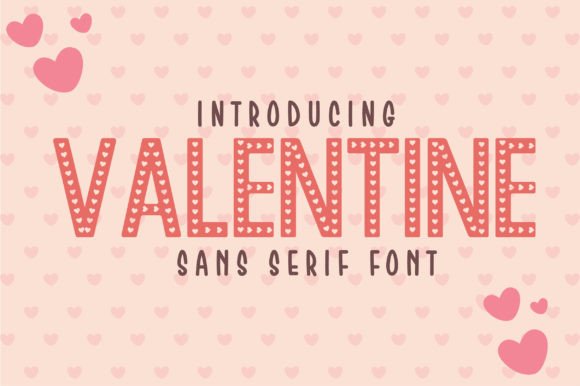
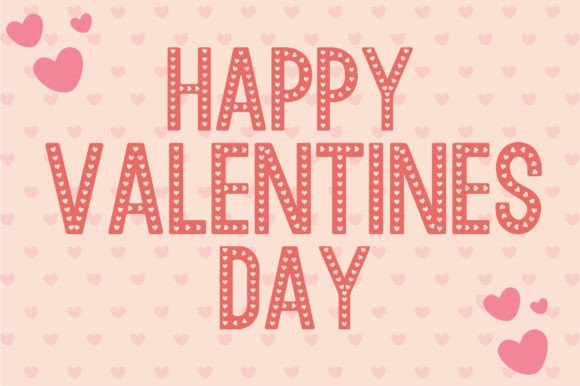
It’s easy to assume that bridal typography requires complex calligraphy, but stripped-back geometry can often make a far more powerful statement on a blank canvas. Valentine is a total breath of fresh air if you are hunting for a Modern Wedding Font that relies on crisp, contemporary sans-serif lines rather than sweeping swashes. It carries a highly unique structural style that brings an immediate sense of clean luxury straight to your main header blocks, ensuring your text commands the artboard with unyielding clarity.
In my day-to-day studio routine, I’ve found that this versatile Modern Wedding Font functions as an incredibly reliable asset across both traditional event print and everyday commercial merchandise. While it shines beautifully on contemporary bridal banners and elegant logo layouts, its structured character paths scale perfectly onto physical lifestyle products like custom apparel, printed mugs, and high-end magazine covers. If you want a display sans that keeps your visual hierarchy impeccably sharp while looking forward rather than backward, Valentine is well worth installing.
2. Whitebeard Modern Wedding Font
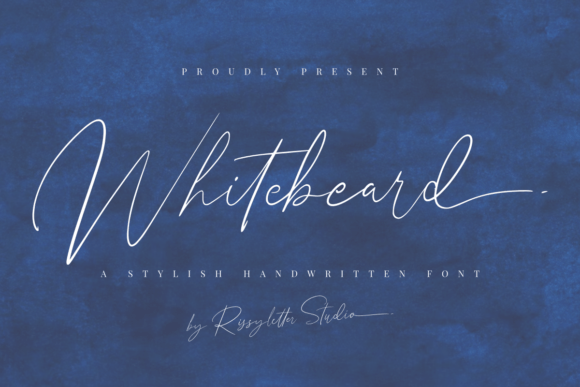
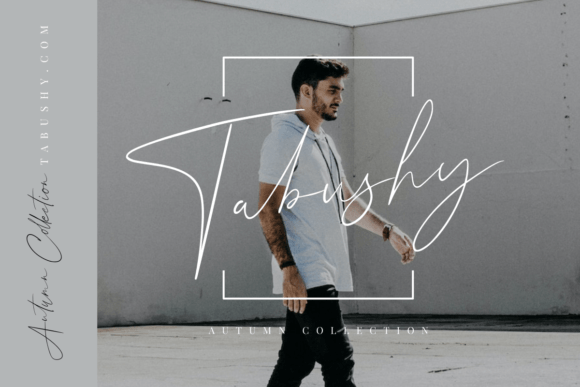
Finding a handwritten script that feels genuinely personal without losing its structural discipline on a high-resolution screen can be a real challenge. Whitebeard completely nails that balance, making it an exceptional choice if you are hunting for a Modern Wedding Font. Built with clean, ink-drawn strokes, it injects an immediate organic warmth directly into your layout, effortlessly cutting through the clinical, predictable paths of standard stock typefaces.
In my own studio workflow, this versatile Modern Wedding Font functions as a highly reliable asset across both digital environments and physical print pieces. It performs beautifully as a crisp watermark for professional photography portfolios, a sleek signature-style logo, or a fluid header for contemporary websites and invitation suites. No matter the scale, Whitebeard keeps its letterforms sharp and legible, giving your creative assets a highly personalized, upscale edge.
3. Handsome Boys Modern Wedding Font
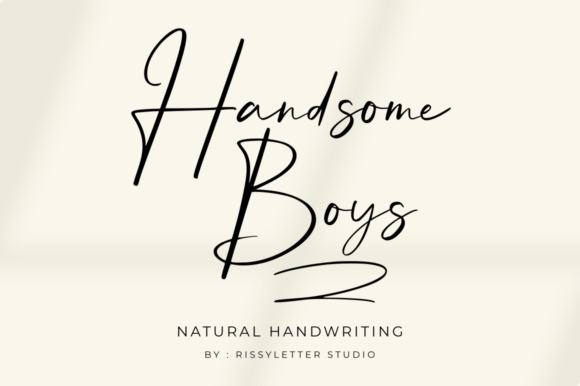
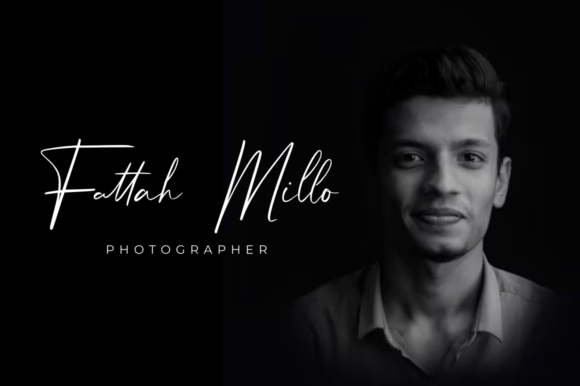
Sometimes you need a script font that sheds the stiff, overly formal rules of the past and brings a fresh, relaxed confidence to the canvas. Handsome Boys hits that sweet spot perfectly, serving as an exceptional choice for a Modern Wedding Font. Its fluid, casual letterforms inject an immediate sense of warmth into your layouts, ensuring your text feels completely approachable yet undeniably sophisticated from the very first glance.
What makes this Modern Wedding Font a great addition to a busy studio toolkit is its massive versatility across completely different design mediums. In my own daily workflow, it performs like an absolute champ for contemporary wedding invitations, sleek photography watermarks, and minimalist signature-style logos. It scales beautifully onto digital branding projects and modern website headers, maintaining its crisp lines while giving your compositions a highly personalized, upscale finish.
4. Wintersay Modern Wedding Font
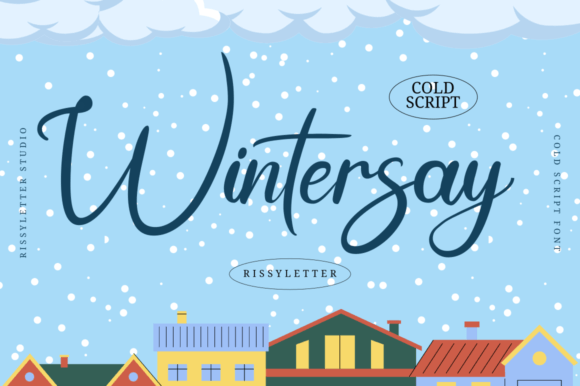
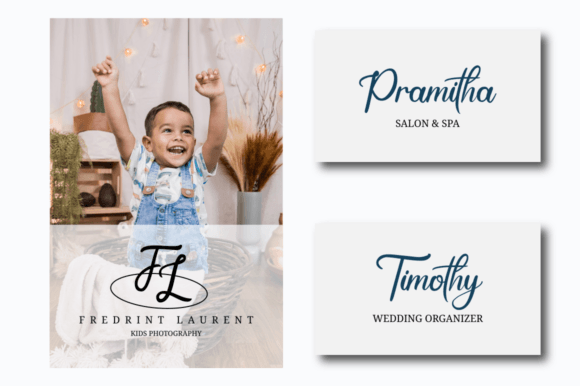
There is a fine line between a script that looks beautifully fluid and one that completely falls apart in a tight layout, but Wintersay walks that line with absolute precision. If you are tracking down a Modern Wedding Font that brings immediate elegance without overcomplicating your canvas, this typeface is an exceptional choice. It features remarkably well-balanced characters that maintain a clean, rhythmic flow, giving your primary header lines a polished, high-end presence.
What makes this specific Modern Wedding Font a total dream to work with in my daily studio routine is that it’s fully PUA encoded. This means you can effortlessly unlock all its custom glyphs and hidden ligatures without dealing with complex software workarounds. Its smooth, structural layout handles a massive range of design projects seamlessly—from sleek bridal invitation suites and event banners to contemporary lifestyle branding, keeping your visual hierarchy sharp and entirely functional.
5. Gorga Romantic Modern Wedding Font
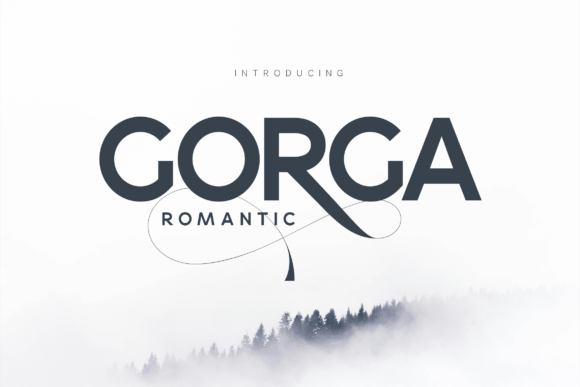
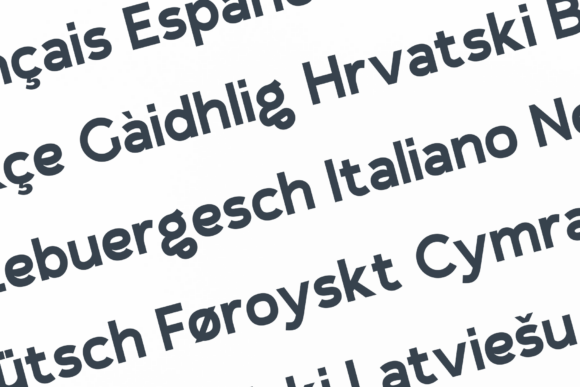
If you think sans-serif typefaces are too sterile for a luxury bridal layout, Gorga Romantic is here to completely change your mind. This brilliant typeface is a stellar example of a Modern Wedding Font that perfectly balances crisp geometric stability with sharp, fluid details. Built on bold, wide-proportioned characters and incredibly clean vector edges, it brings an immediate structural weight to your canvas while keeping the design feeling entirely fresh and forward-thinking.
What completely stole my attention is its standout decorative feature—a dramatically elongated, calligraphic tail on the uppercase “R” that loops beneath adjacent characters in a thin-line stroke. In my own studio workflow, this unique Modern Wedding Font works as a total powerhouse for high-impact header blocks, custom branding layouts, and editorial event signage. It effortlessly replaces predictable digital paths with a custom-engineered presence that commands attention.
6. Rergian Modern Wedding Font
Mastering the balance between quiet minimalism and high-impact drama is a tough design feat, but Rergian executes it with absolute poise. If you are searching for a Modern Wedding Font that brings a sleek, expressive presence to your artboards, this display typeface is an incredible find. It takes clean, elongated serif letterforms and punctuates them with dramatic, rhythmic swashes, instantly lifting your text blocks out of the ordinary and giving your primary headers an airy, editorial feel.
In my everyday design routine, what makes this specific Modern Wedding Font such a flexible asset is how flawlessly it bridges the gap between digital layouts and physical print pieces. Beyond crafting striking contemporary wedding stationery, its structured proportions and seamless ligatures handle high-end boutique branding and artisanal skincare packaging like a total champion. Whether you are typesetting a luxury website hero section or building out trendy social media layouts, Rergian provides that custom-penned visual hierarchy that keeps your compositions looking entirely polished and upscale.
7. Rokina Modern Wedding Font
If you want to break away from traditional handwritten scripts without losing that distinct sense of luxury, an editorial serif with calligraphic details is the ultimate design move. Rokina is a phenomenal choice when you need a Modern Wedding Font that perfectly balances classic heritage with a sharp, contemporary edge. Its graceful, sweeping curves and unique, high-contrast terminals mimic the organic stroke of a custom ink pen, instantly giving your primary headers an incredibly expensive, tailored silhouette.
On the artboard, what really makes this Modern Wedding Font stand out are its meticulously crafted flared serifs and elongated, artistic descenders. In my own studio workflow, it functions as a total powerhouse not just for contemporary bridal stationery, but also for high-end fashion branding, chic boutique packaging, and upscale magazine headers. It maintains its structural integrity beautifully from crisp digital screens to heavy letterpress cardstock, ensuring your typography layout looks entirely polished and forward-thinking.
8. Camelia Samira Modern Wedding Font
Sometimes a design needs to step away from sharp, intimidating editorial lines and lean into something that feels deeply human and welcoming. That’s where Camelia Samira shines as a Modern Wedding Font. It brings a bold, handwritten weight to the canvas, balancing its natural, fluid curves with a soft, rounded finish that fills your header blocks with an immediate sense of genuine charm.
What makes this particular Modern Wedding Font a fantastic asset for a contemporary studio toolkit is its playful yet graceful adaptability. In my daily workflow, it functions beautifully for crafting standout lifestyle branding logos, custom product packaging, and punchy social media quotes. Its friendly flow ensures that your layout maintains a crisp, personalized visual hierarchy across both digital screens and physical stationery items.
9. Luxora Serif Modern Wedding Font
Striking the right balance between high-end luxury and approachable warmth can be incredibly tricky when typesetting a bridal layout, but Luxora Serif pulls it off brilliantly. If you are searching for a Modern Wedding Font that completely bypasses stiff, intimidating traditionalism, this chic display typeface is an absolute game-changer. Its beautifully balanced letterforms feature a clean, medium contrast and subtly rounded serifs that soften the harsh geometry of typical editorial typefaces, adding an inviting, friendly character to your primary text headers.
In my daily design workflow, this versatile Modern Wedding Font has become a total go-to for layouts requiring a sense of comfortable, understated luxury. It functions as an exceptional anchor for contemporary wedding stationery suites, boutique branding assets, and high-end packaging for organic products. Because it keeps its clean lines completely legible without feeling overly formal, it ensures a highly polished visual hierarchy that translates flawlessly from digital lifestyle grids to physical print stock.
10. Dachshund Modern Wedding Font
Every now and then, a typeface comes along with a name that completely misrepresents how incredibly chic it actually looks on an artboard. Dachshund is a prime example, serving as an exceptionally sleek Modern Wedding Font that trades predictable script paths for an elongated, hand-drawn grace. Its tall ascenders and smooth, rhythmic letterforms inject an immediate structural elegance into your layout, transforming basic header lines into a highly polished, custom-inked statement.
What makes this Modern Wedding Font such a valuable addition to my active design toolkit is its ability to look uniquely personalized while maintaining strict professional discipline. In my day-to-day workflow, it functions beautifully for contemporary bridal stationery suites, editorial website headers, and high-end boutique branding projects. The clean verticality of the characters ensures that your composition stays crisp and perfectly legible, whether viewed on a mobile screen or printed on heavy cardstock.
11. Pinus Modern Wedding Font
If you are designing for a garden or destination event, standard sterile serifs can feel a bit detached from the surroundings. Pinus is a brilliant solution when you need a Modern Wedding Font that builds organic elements directly into the typography. This display face takes classic serif letterforms and intertwines them with hand-drawn floral vines, leaf sprigs, and blooming petals, turning your primary headers into bespoke pieces of botanical art.
In my daily studio routine, what makes this specific Modern Wedding Font a standout asset is its ability to build a rich theme without requiring separate graphic overlays. It handles contemporary invitation suites, floral boutique logos, and artisanal packaging like a total champion. The rhythmic organic details ensure your layouts maintain a sharp visual hierarchy while delivering a grand, custom-drawn finish that scales perfectly from textured cardstock to digital screens.
12. Sunny Notes Modern Wedding Font
There is something incredibly refreshing about a script that doesn’t try to look perfectly smoothed out by a computer, but instead embraces the raw, tactile imperfections of ink on paper. Sunny Notes is a brilliant option if you are on the lookout for a Modern Wedding Font that brings a genuine, organic feel to your artboards. Built as a charming handwritten script with a subtle built-in texture, it effortlessly cuts through sterile digital vectors to inject a relaxed, playful touch directly into your primary text blocks.
In my everyday design workflow, this cursive typeface functions as a total chameleon for layouts that require a casual yet deeply stylish presence. It performs beautifully on contemporary bridal invitations, ensuring the layout looks uniquely custom-made rather than mass-produced, but it also scales wonderfully onto lifestyle brand identities and bold editorial quotes. If you need a script that trades rigid traditionalism for a warm, human touch while keeping your visual hierarchy completely clean, Sunny Notes is a stellar addition to your active library.
13. Damar and Wulan Modern Wedding Font
There is something completely mesmerizing about a typeface that relies on razor-thin, minimalist geometry to capture attention rather than heavy, dramatic flourishes. Damar and Wulan is an absolute masterclass in this stripped-back approach, making it a spectacular choice for a Modern Wedding Font. Built with incredibly sleek lines and creative letterforms, it brings a sophisticated, contemporary edge to your canvas that instantly elevates simple header blocks into refined, artistic statements.
In my daily studio routine, I find myself reaching for this typeface whenever a project demands a look that is quietly luxurious yet deeply individual. This versatile Modern Wedding Font functions beautifully as a structural anchor for high-end bridal invitation suites, editorial layouts, and minimalist brand logos. Its clean, thin character paths ensure your typography maintains an impeccably sharp visual hierarchy, making it a highly reliable asset for both high-resolution digital screens and premium print layouts.
14. Journey Slovanika Modern Wedding Font
Finding a serif typeface that feels both fiercely fashionable and highly legible can be a tough balancing act, but Journey Slovanika handles it effortlessly. If you are looking for a Modern Wedding Font that commands attention through sheer contrast, this elegant display face is a standout choice. The deliberate interplay between its razor-thin strokes and thick, structural lines gives each letterform an undeniably strong editorial presence, making your primary headline text look incredibly tailored and high-end.
What makes this Modern Wedding Font a permanent resident in my active design toolkit is its rare ability to function perfectly as both a striking headline asset and comfortable body text. In my daily workflow, it serves as a total powerhouse for intricate print and digital compositions, handling multi-page bridal magazines, editorial event signs, and premium product packaging like a total champion. The unified stroke construction ensures that your layout maintains a sharp visual hierarchy, delivering a flawless reading experience across both textured cardstock and mobile screens.
15. Primavello Modern Wedding Font
When you need your headers to carry a sense of undeniable architectural authority rather than melting into the background, a towering display typeface is the ultimate layout strategy. Primavello is an absolute standout if you are hunting for a Modern Wedding Font that commands space through structural height and bold, confident lines. It masterfully balances tall vertical paths with subtle, soft curves, injecting an exclusive, high-end prestige directly into your primary text blocks without overwhelming the surrounding negative space.
In my day-to-day studio routine, what makes this specific Modern Wedding Font a valuable asset is its seamless adaptability between commercial brand identities and upscale event stationery. It functions as a total powerhouse for crafting clean logos, editorial headers, and contemporary venue decorations that need to feel both romantic and structured. The crisp vector execution ensures that whether you are typesetting large-scale print signs or a delicate digital invite, your visual hierarchy remains flawlessly sharp.
Conclusion
Ultimately, choosing the right Modern Wedding Font comes down to the balance between structural legibility and artistic character. Whether your project demands crisp sans-serif lines, towering serifs, or tactile handwritten scripts, these 15 assets ensure your layouts look entirely premium. Drop them into your active workspace and elevate your next branding suite.